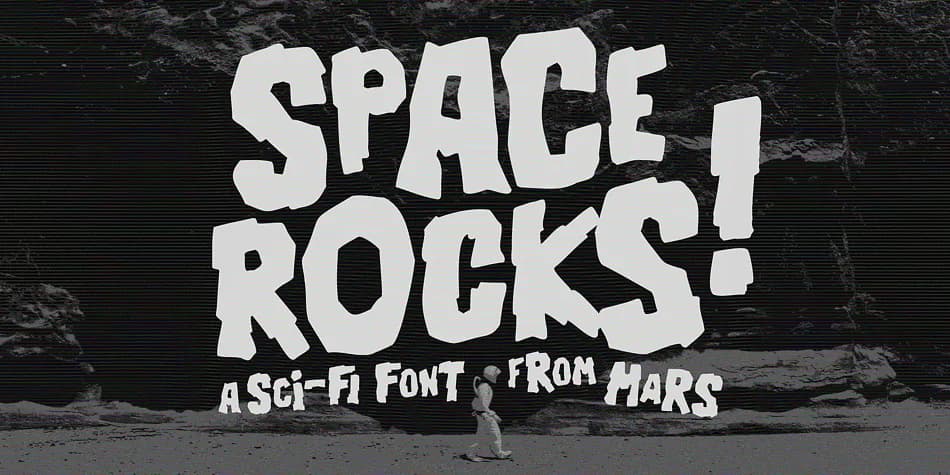
You're laying out a retro sci-fi movie poster and you need title lettering that reads as genuinely vintage without relying on another generic default font. Space Rocks by Wingsart Studio captures exactly that feeling, with hand-drawn letterforms inspired by the opening sequences of classic 1950s and 60s television shows. The all-caps design carries the optimistic, adventurous spirit of mid-century space narratives, complete with discretionary ligatures that add a playful comic touch to the forms without tipping into parody.
This typeface shines on retro sci-fi concert posters, vinyl album cover designs, vintage comic book title treatments, and throwback event invitations that need the authentic golden-age television aesthetic. Both the Regular and Outlined versions are fully hand-drawn, each offering a distinct approach to the same character set. The complete package includes uppercase and lowercase letters, numerals, punctuation, comprehensive language support, decorative underlines, and a collection of symbols that work together as a unified system.
Space Rocks Font is a display font that shines as a display or heading face. Pair it with a clean sans-serif or serif font for body text โ the contrast creates a clear hierarchy while the two styles stay balanced and easy to read.
Space Rocks Font